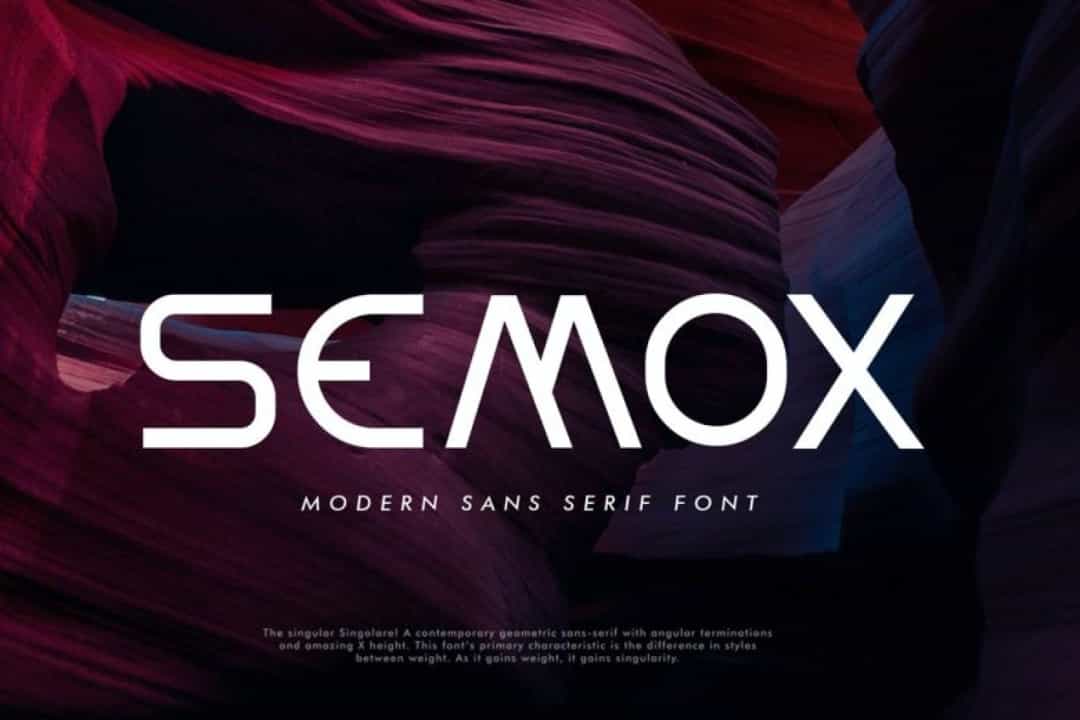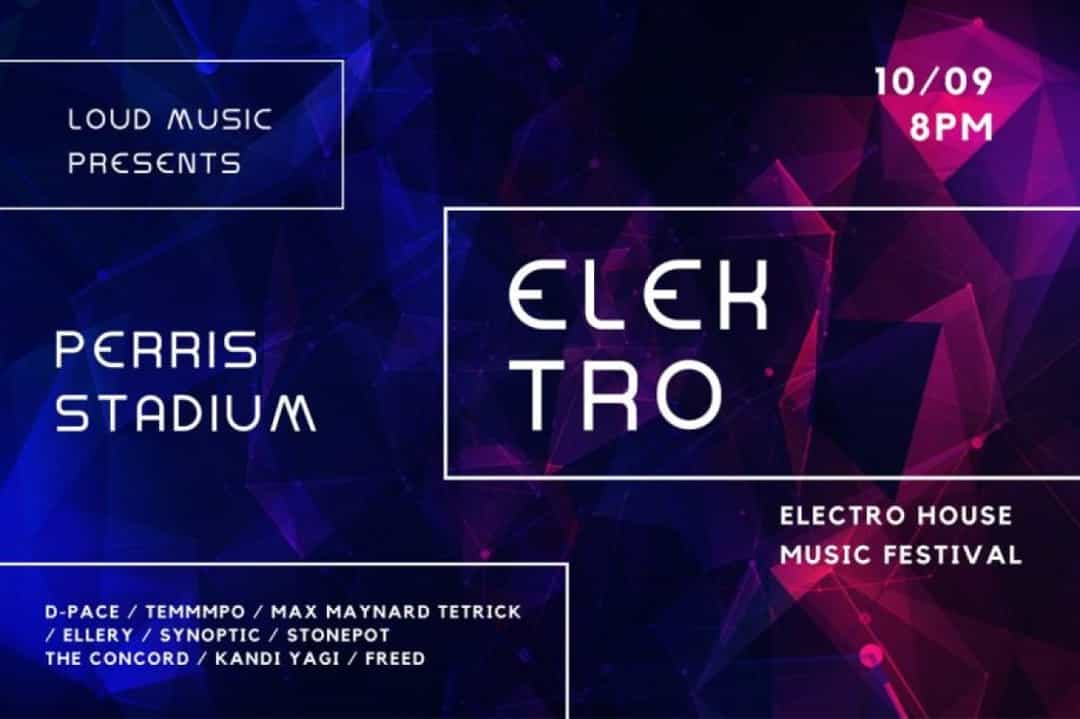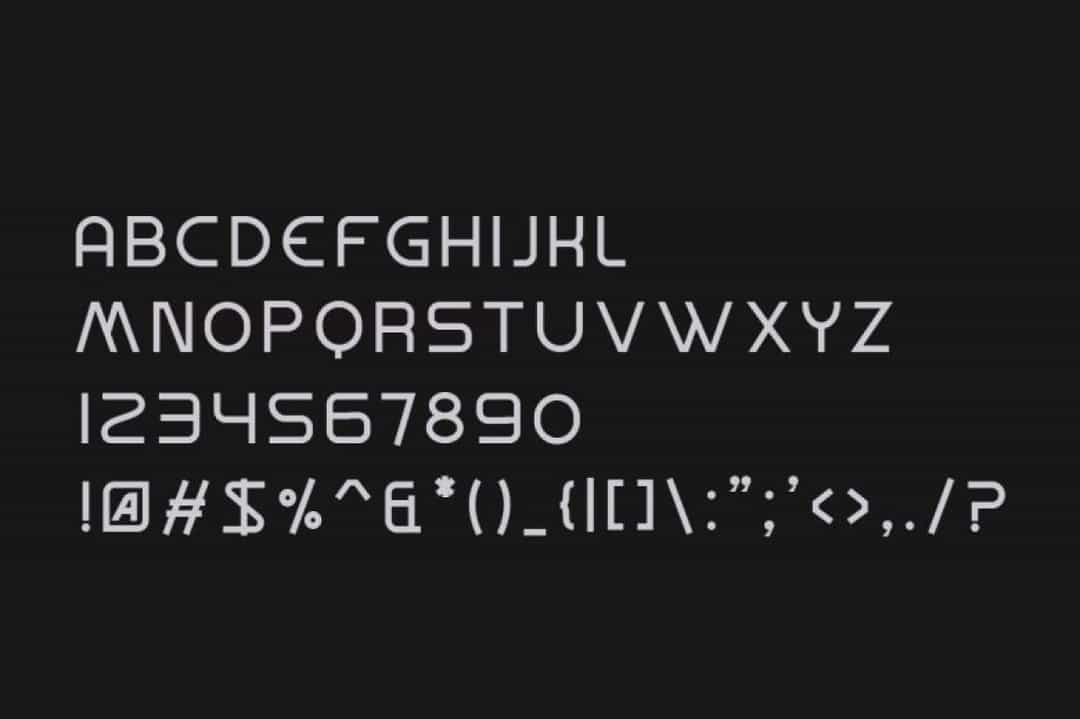
Semox font can be defined as a sans serif font with distinct lowercase letters that gives your designs an ultra-modern and futuristic vibe. Ideal for logotype creations.